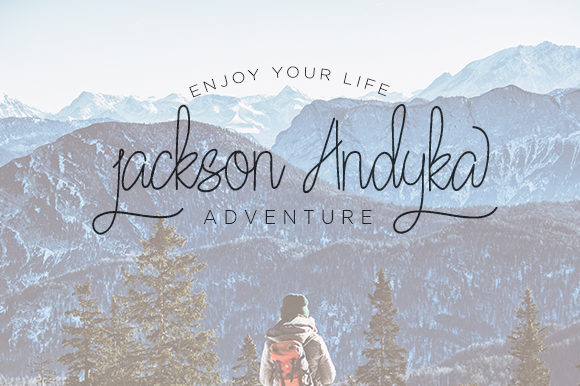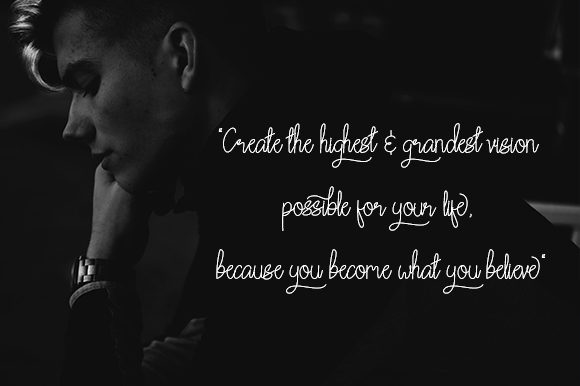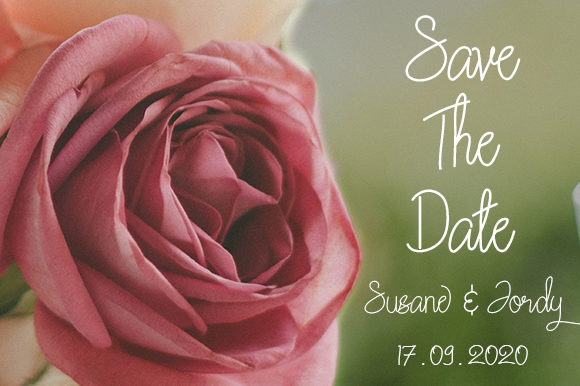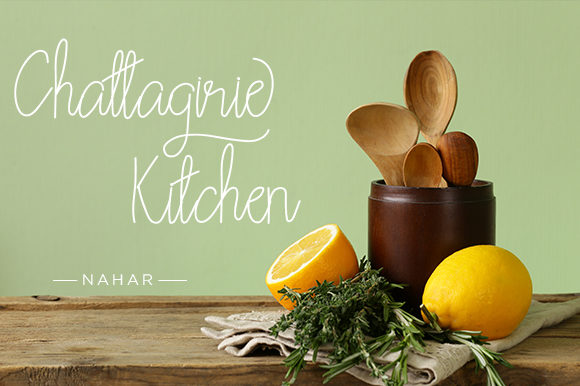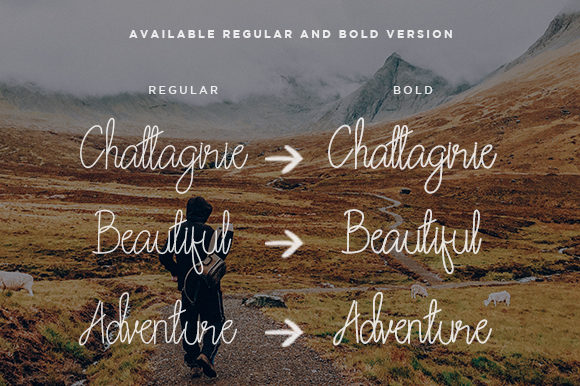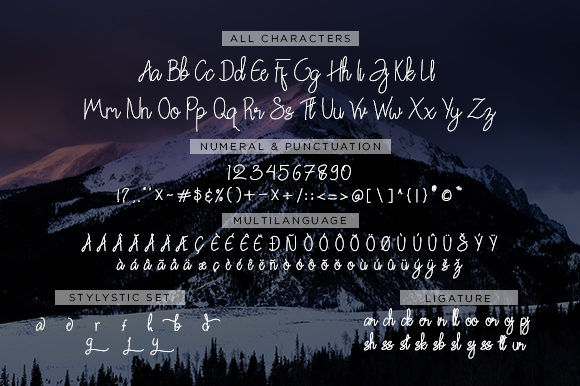
When Handwriting Meets Design: The Charm of Chattagirie Script Font
Have you ever sat down with a cup of coffee and a blank piece of paper, waiting for the perfect idea to strike? For many creatives, this moment of inspiration is where the magic happens. It’s where a simple doodle can transform into a stunning logo or a beautiful piece of typography. And for designers, the right font can make all the difference in bringing their vision to life.
Enter the Chattagirie Script Font, a beautiful handwritten font that’s as versatile as it is charming. With its natural writing style and excellent readability, it’s the perfect choice for a wide range of projects, from logos and branding to homeware designs and product packaging. Whether you’re looking to add a touch of personality to your designs or simply want a font that’s easy to read, the Chattagirie Script Font is a valuable addition to any designer’s toolkit.
Chattagirie Script Font Key Features
- Font Family: Chattagirie Script Font is a beautiful script font, ideal for creating elegant and sophisticated designs.
- Unique Characteristics: Features a unique blend of modern and traditional script styles, with intricate flourishes and elegant connections between letters.
Designer Review: Chattagirie Script Font
Overall, I think Chattagirie Script Font is a lovely addition to any designer’s toolbox. It’s perfect for creating a whimsical, handwritten feel in your projects.
- Unique and elegant script style
- Perfect for creating a sense of nostalgia and romance
- Wide range of uses, from wedding invitations to food labels
- High-quality font files with clear and readable glyphs
- May not be suitable for large blocks of text due to its script nature
- Can be difficult to read at small font sizes
- May not be as versatile as more modern script fonts
Overall, I’d give Chattagirie Script Font 4 out of 5 stars. While it has its limitations, it’s a beautiful font that can add a touch of elegance to any project. With a little creativity and careful use, I think it can be a valuable addition to any designer’s collection.
Tips for Getting the Most Out of the Chattagirie Script Font
Use the Chattagirie Script Font for:
- Casual and creative projects.
- Handwritten-style text effects.
Experiment with different font sizes, colors, and styles to achieve the desired look.
The Chattagirie Script Font is perfect for:
- Wedding invitations and announcements.
- Personalized gifts and stationery.
- Blog posts and social